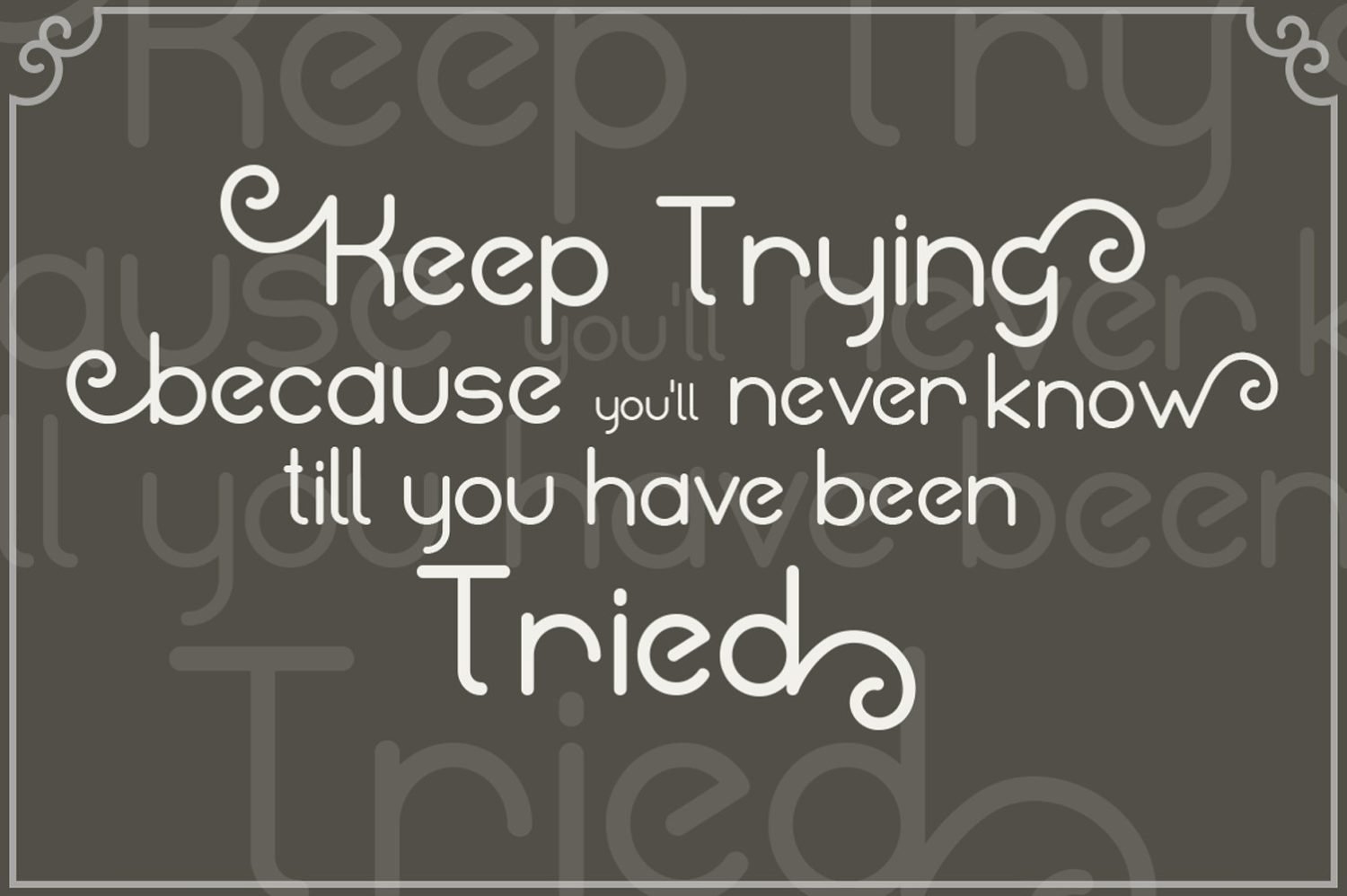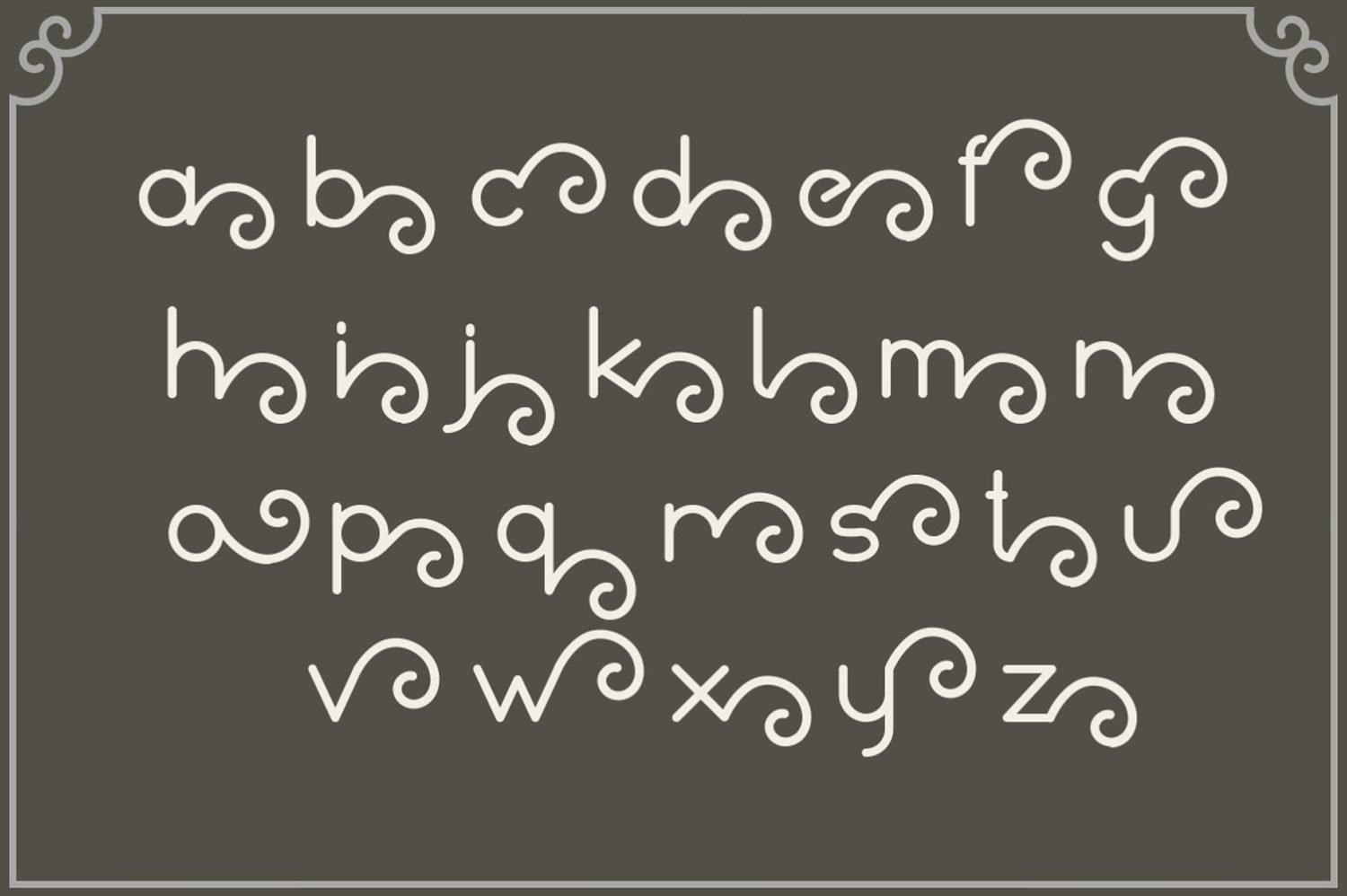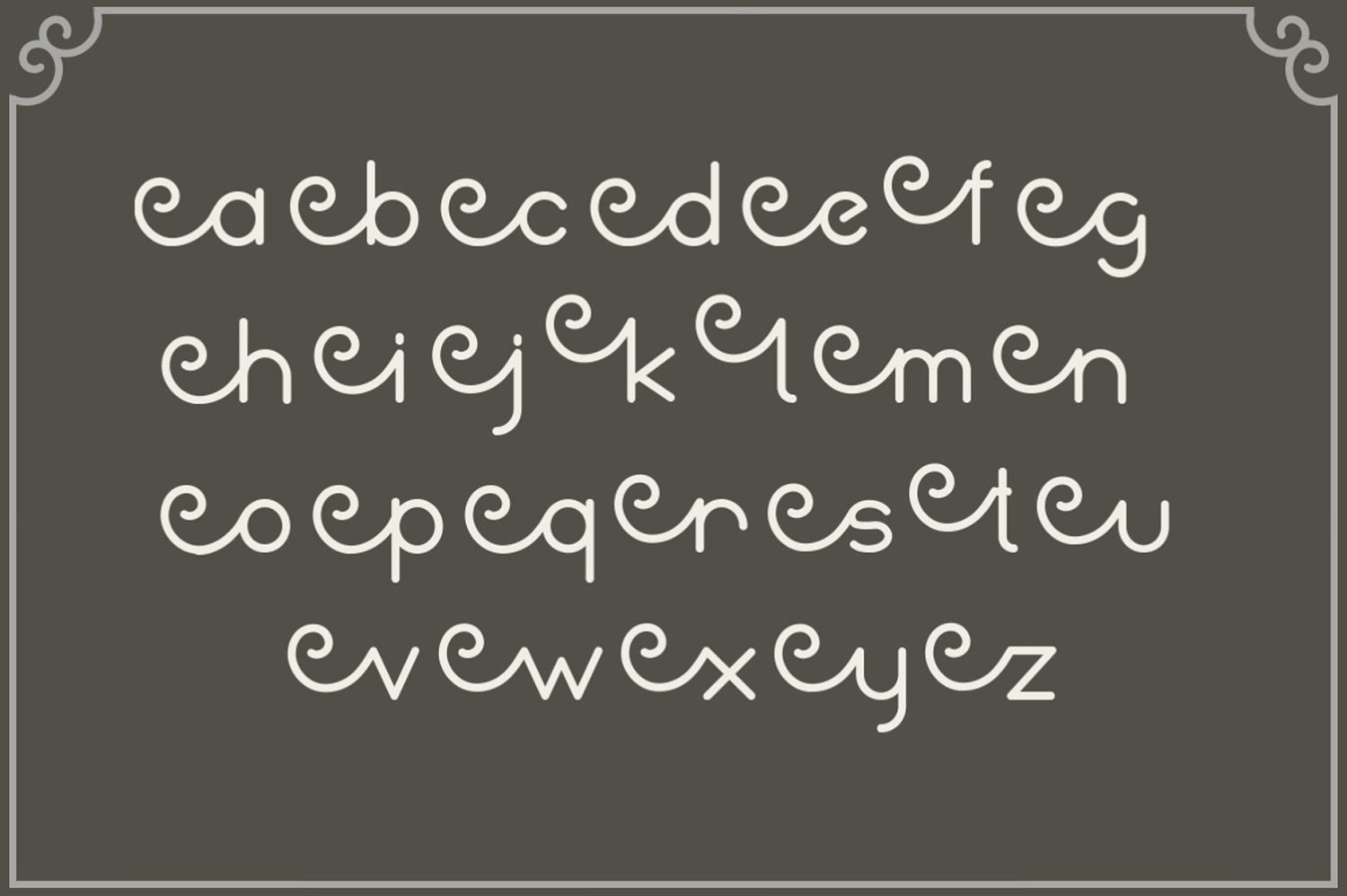
Belina
Introducing: Belina! a simple and cute font for beautiful design. Belina is great for branding design, invitation designs, logo, product display, product packaging, or simply quote and design with stylish text overlay to any background image.